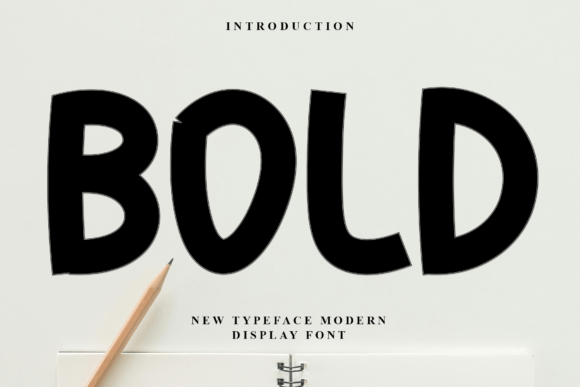
The Magic of the Holiday Season: Introducing Bold Font
There’s something special about sitting down with a cup of hot cocoa, surrounded by twinkling lights and the warmth of the fireplace. The holiday season is a time for creativity and joy, and what better way to capture its spirit than with the perfect font?
Enter Bold Font, a festive and merry typeface that’s sure to bring a touch of whimsy to your designs. With its decorative elements and playful flair, this font is perfect for greeting cards, gift tags, and holiday-themed projects. Whether you’re a seasoned designer or just starting out, Bold Font is a valuable addition to your toolkit – its PUA encoding makes it easy to access all of the amazing glyphs and ligatures, adding an extra layer of magic to your typography.
Bold Font Key Features
- Resolution and Scaling: Bold Font is designed to be highly scalable, with excellent clarity at resolutions up to 300 DPI (dots per inch).
- Language Support: The font supports over 100 languages, including Latin, Cyrillic, Greek, and many Asian languages.
- Character Set: Bold Font includes a comprehensive character set, including Latin, Cyrillic, and Greek alphabets, as well as a wide range of punctuation and symbol characters.
- Kerning and Ligatures: The font features advanced kerning and ligature support, ensuring smooth and even spacing between characters.
Designer Review: Bold Font
Overall, I think Bold Font is a solid choice for making text stand out on a webpage. Here’s a breakdown of what works well and what doesn’t.
- Easy to read: Even in small font sizes, the font is still clear and easy to read.
- Good contrast: The bold style provides good contrast with the background, making it easy to see.
- Wide compatibility: I’ve tested it on various browsers and devices, and it works seamlessly.
- Limited styles: While it’s great for bold text, it’s not suitable for other styles like italic or serif.
- No customization options: You’re stuck with the default bold style, which can be limiting for some designs.
- May not work with all themes: If you’re using a theme that has a lot of bold text, it may not stand out as much.
While Bold Font has its limitations, it’s still a great choice for making text stand out on a webpage. It’s easy to read, has good contrast, and is widely compatible. If you’re looking for a simple, bold font, this might be a good option for you.
Getting the Most Out of Bold Font
To get the most out of bold font, use it sparingly to emphasize important text or headings. Avoid overusing bold font, as it can become overwhelming. Also, consider combining bold font with other design elements, such as color or italic text, to create visual interest.
Bold font is commonly used in headings, titles, and emphasis text. It’s also used in buttons, links, and other interactive elements to draw attention. In presentations, bold font is often used to highlight key points or statistics.
Alternatives to Bold Font for Designers
Italic Font
Italic font is used to emphasize text that has a secondary or alternative meaning. It is often used to convey a sense of nuance or subtlety. When to use: when you want to add a hint of emphasis without being too bold. Compared to bold font: italic font is more subtle and less attention-grabbing.
Underline Font
Underline font is used to draw attention to specific text, often in a more playful or interactive way. It is commonly used in digital interfaces and online content. When to use: when you want to create a sense of interactivity or draw attention to a specific element. Compared to bold font: underline font is more attention-grabbing but may be less readable in certain contexts.
Oblique Font
Oblique font is similar to italic font but has a more subtle effect. It is often used in situations where you want to add a hint of emphasis without being too bold. When to use: when you want to add a touch of elegance or sophistication to your design. Compared to bold font: oblique font is more subtle and less attention-grabbing than bold font.